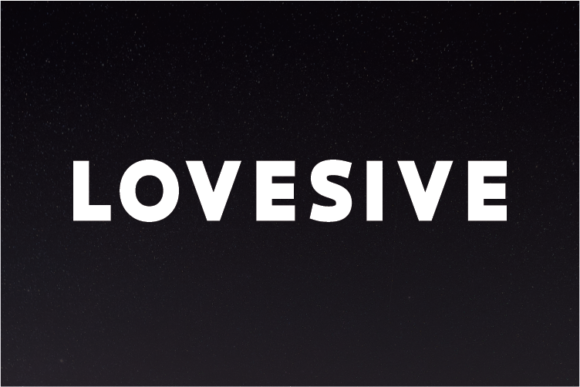
Behold, the exquisite Lovesive Font, a sans serif masterpiece that embodies sophistication and captivating charm. Its allure lies in its clean lines, graceful curves, and meticulous attention to detail.
Indulge in the world of Lovesive, where corporate emails take flight with an air of polished professionalism. Its crisp contours and balanced proportions lend a touch of elegance to every message, transforming mundane communications into veritable works of art.
But Lovesive's versatility extends far beyond the confines of the inbox. Whether you seek to craft striking headlines that command attention or design captivating logos that leave a lasting impression, this font stands ready to elevate your creative endeavors.
Step into the realm of fashion and let Lovesive adorn your garments with a touch of understated chic. Its timeless style complements any design, infusing a sense of sophistication into every thread.
Unleash your inner artist and watch as Lovesive breathes life into your posters, music, movies, and games. Its versatility knows no bounds, adapting effortlessly to any creative vision.
Embark on a literary journey with Lovesive, where it graces the pages of books, comics, and magazines alike. Its readability and visual appeal captivate the imagination, inviting readers to immerse themselves in your written worlds.
If you seek a font that resonates with modern sensibilities and timeless appeal, look no further than Lovesive. Its creative possibilities are as boundless as your imagination. Join the ranks of those who have fallen under the enchanting spell of Lovesive and let its beauty empower your creative endeavors today!